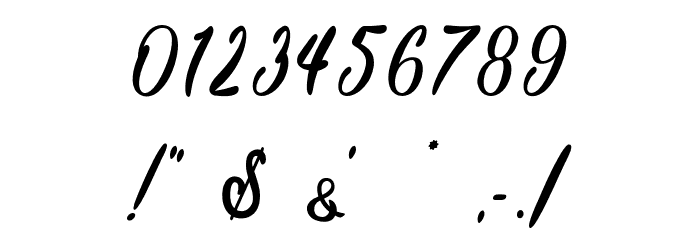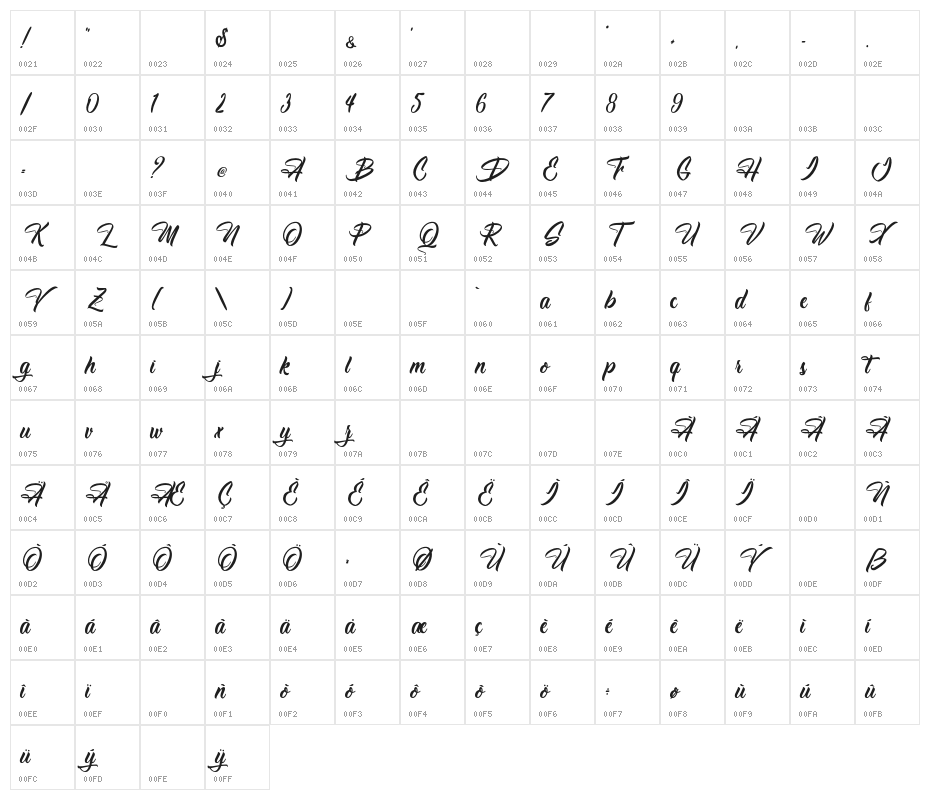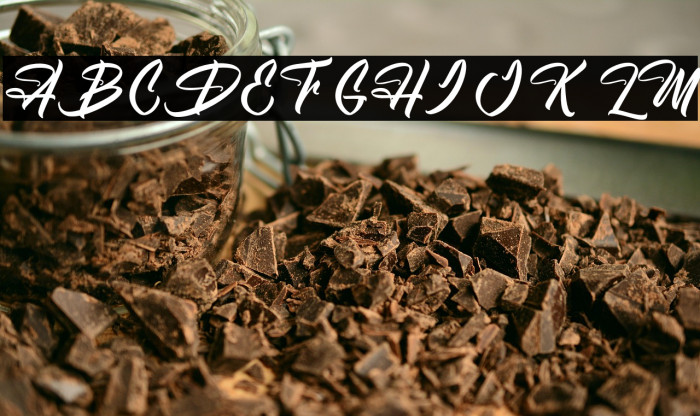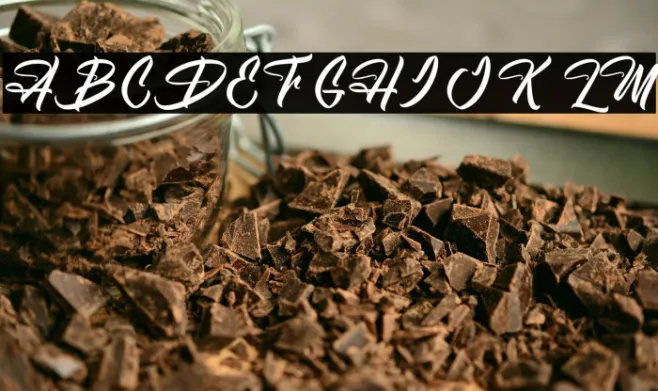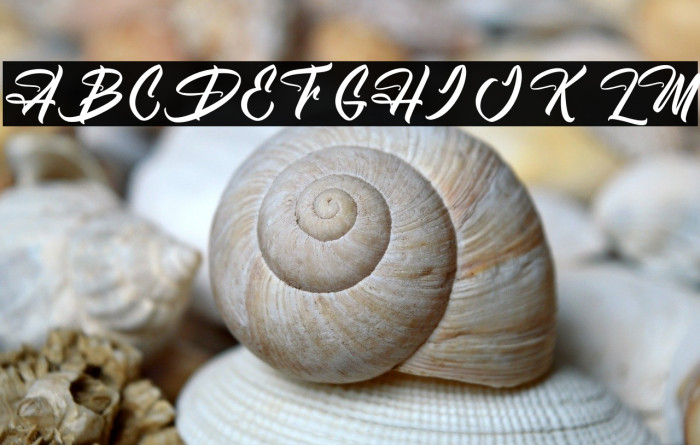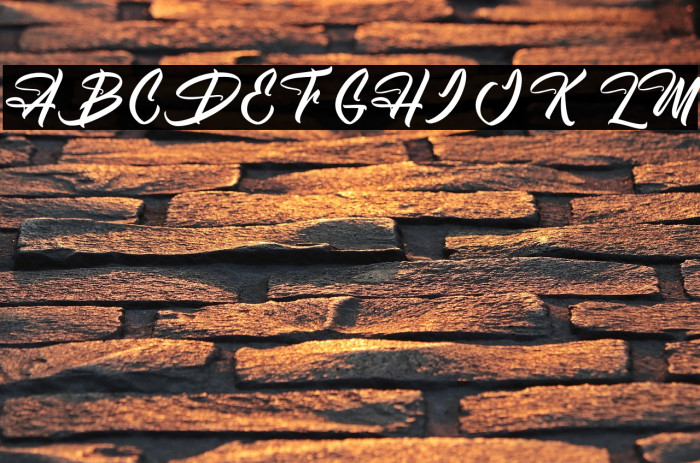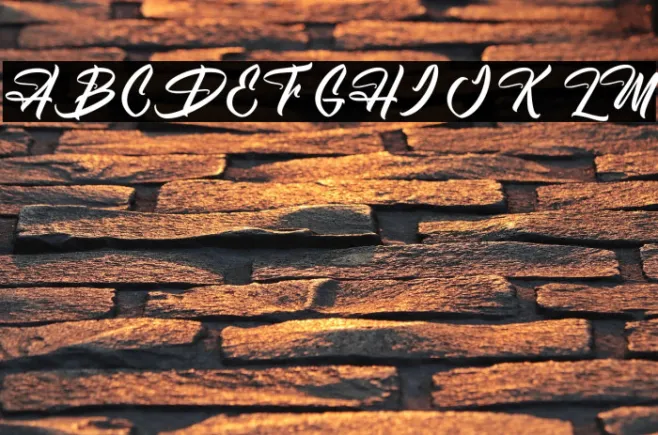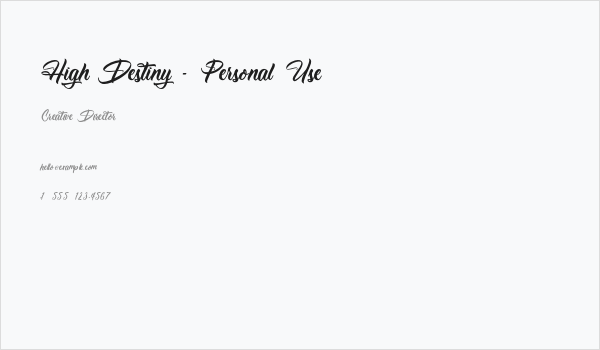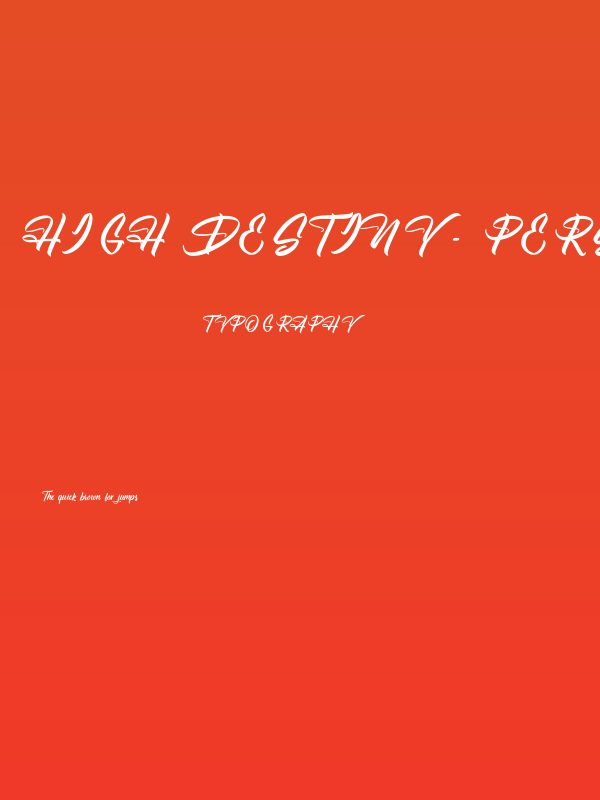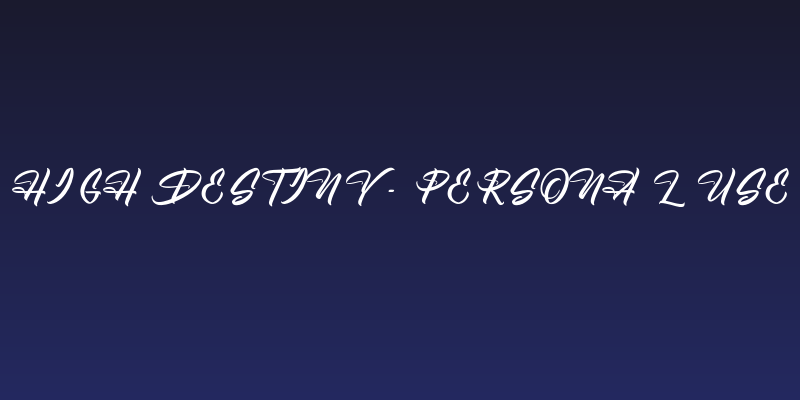
High Destiny - Personal Use Font
High Destiny - Personal Use Description
This font exudes a sense of elegance and sophistication with its flowing script style. The uppercase letters are characterized by their ornate loops and flourishes, giving them a decorative appearance. The lowercase letters maintain a consistent cursive flow, enhancing readability while retaining a stylish flair. Numbers and special characters are crafted with the same attention to detail, ensuring a cohesive look across all elements. The overall design is reminiscent of traditional calligraphy, making it suitable for projects that require a touch of class and refinement.
Overall StyleClassic
Use CaseLogos, Invitations, Decorative text
Proposed ProjectsIdeal for wedding invitations, elegant branding, greeting cards, and upscale packaging.